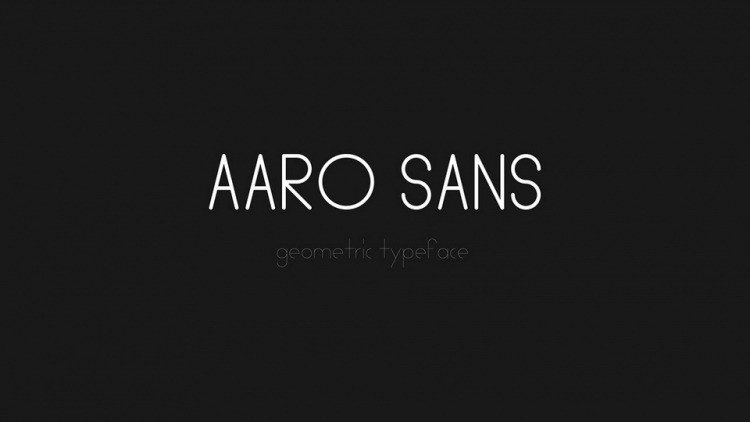
Aaro Font
Aaro Font is a geometric font family designed for dramatic display. It’s a modern, futuristic, minimal and clean. With upper & lower case characters, numbers, and punctuation. This font makes way for the creativity of each and every one.
It’s great for creating eye-catching headlines, logo, applicable for any type of graphic design web, print, motion graphics, perfect for poster/flyer, branding, packaging, pictograms, etc.